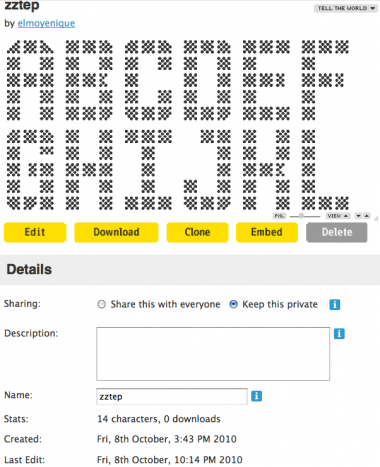
Wonderful! Only thing I would point out is that you could have made m and w wider.
@ riccardO: m and w can't be wider, because this font is monospaced. :)
How about a proportional space version?
I have to agree with caliopigio a standard version would be much cooler. I'm not a fan of monospaced at all. I find it has very little use, and looks really poor as a lower case.
ALL my fonts are useless anyway. No reason to start making them usable now. :D
I use them a lot on prospective logos. Although no clients have actually selected them yet, but they're defo used.
It makes no sense to make a font that is unusable, or that has very little use. Unless you're just killing time?
Killing time for sure. This is why I don't care if they make sense or have a complete character set or get downloaded or anything valuable. I just want to not be bored. Usually making these fonts keeps me occupied. Their main purpose is always served whether usable or not. With the 'minimum' account, I specifically --try-- to create something interesting to look at that is --maybe-- slightly unique. Usability is the lowest of the priorities here. :-)
That said, would love to see unselected logos.
A synonym for unusable is useless. Ata, your fonts hardly qualify as useless, as djnippa attests.
As for the value of monospaced fonts, I respectfully disagree with dj's opinion. My own work, most of which employs the fixed-width concept, demonstrates clearly that I'm not a professional designer like him; nevertheless, I've found countless uses for several of my monospaced fonts, and I rely on them every single day.
Obviously, there are many thousands of fonts from which to choose. If certain kinds are not right for a project or not to one's taste, they can easily be avoided. And with FontStruct, we all have the freedom to concentrate on creating whatever type styles make us happy. Isn't that why diversity is so wonderful? :)
Just noticed that you have an alternate g where the j belongs.
well this would be an interesting debate for sure: when designers design should they design with usability in mind or design unencumbered? i suppose i have done both, although i feel strongly that any usability consideration should be strictly those of the designer. if for whatever reason someone uses it, great. but that shouldn't restrict a designer. maybe i suppose since a designer is not necessarily considered a pure artist, we should strive for usability, but then i have done some good work just having fun. i think for me that is a bigger consideration. even those fonts that take a little more work - as long as i'm having fun, i'm good. don't think i could ever do as many as i've done only thinking about use. anyway, it's all good.
Good font! Convergent thinking into FS, again: I started this other font recently, but I left it in dry dock.
I don't like this font.